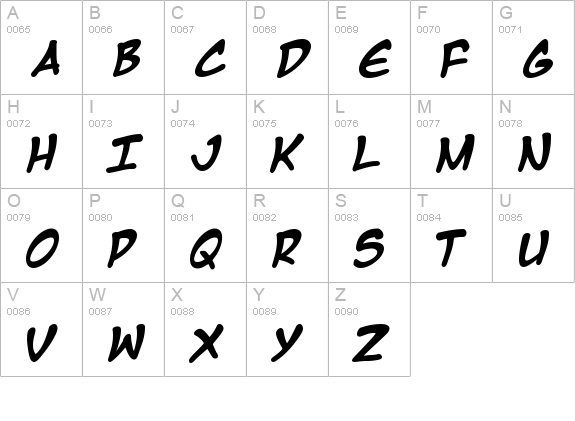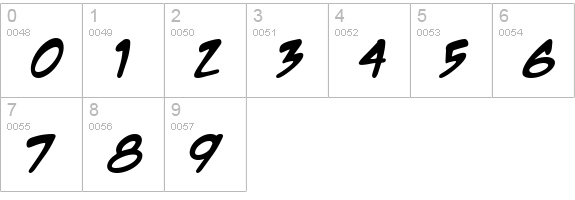
Manga Temple Bold Font Details
Manga Temple Bold is a strong, high-contrast variant in the Manga typeface family \xE2\x80\x94 well suited to headlines, attention-grabbing titles, and strong calls-to-action.
Manga Temple Bold font is an extraordinary typeface designed for all the manga enthusiasts out there. With its bold and striking appearance, this font effortlessly captures the essence of manga art and brings it to life on the page. Featuring beautifully crafted characters with sharp, clean lines and intricate details, Manga Temple Bold font is perfect for creating eye-catching titles, headlines, and logos that demand attention. Its unique style adds a touch of authenticity and excitement to any project, making it a must-have for manga artists, designers, and illustrators. But that's not all! The best part is that Manga Temple Bold font is absolutely free! Yes, you read that right. This incredible font can be freely downloaded at FontsMarket.com, a trusted source for high-quality fonts. Now you can enhance your designs with the captivating power of manga without any cost. So whether you're working on a manga-inspired comic, a poster for an anime convention, or simply want to infuse your design with a touch of Japanese pop culture, Manga Temple Bold font is the perfect choice. With its freely available download, you have the opportunity to elevate your creations and bring them to the next level. Don't miss out on this incredible font – get your hands on Manga Temple Bold font today and let your imagination run wild!